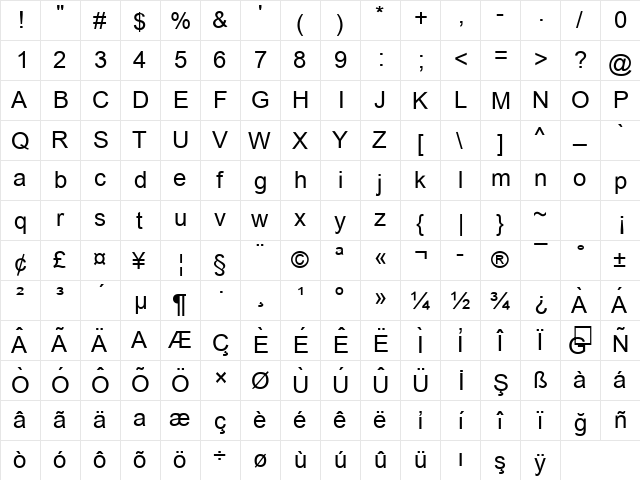
BCTUR Normal
Design Context for BCTUR Typeface
BCTUR takes a measured approach to typography — its balanced proportions and neutral character make it a reliable workhorse for both digital and print work.